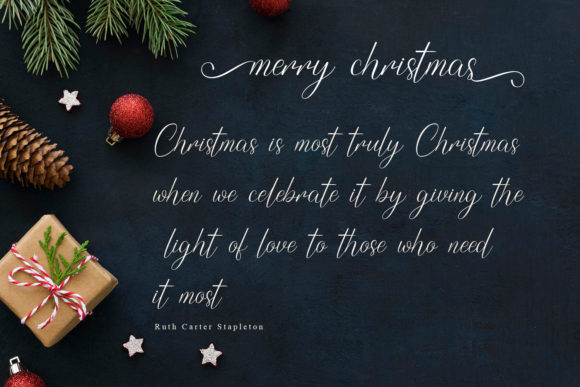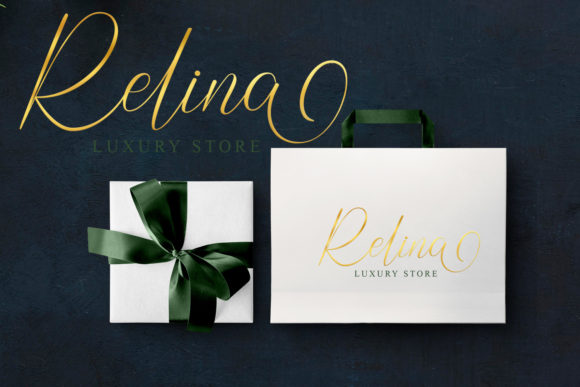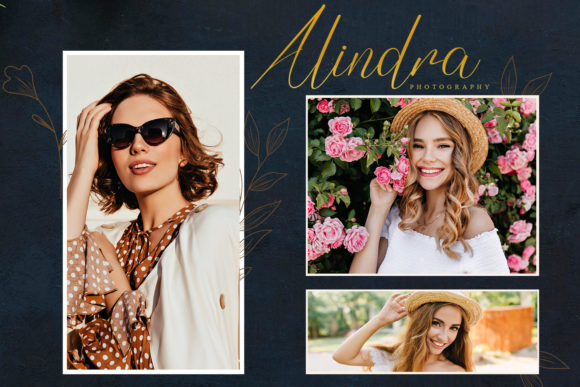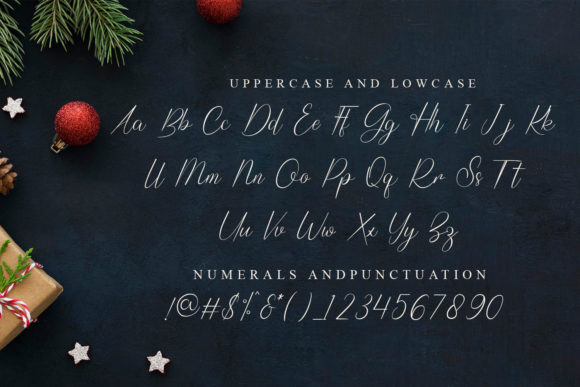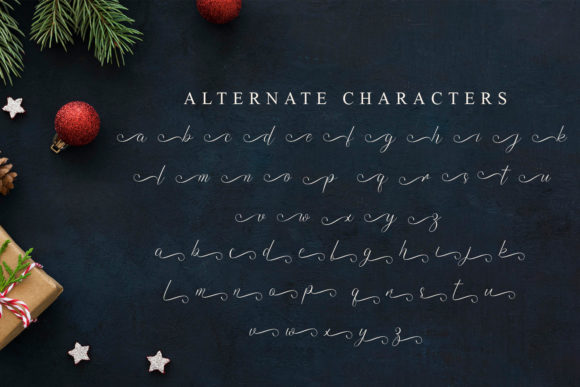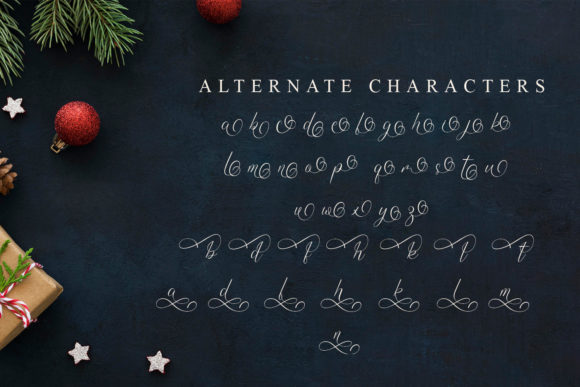
Introduction to Francella Font Font
Fonts play a crucial role in design, and the Francella Font font is a typeface that brings both character and versatility to any project. Whether you’re working on a branding project, a website, or a print design, the Francella Font font offers a unique style that can elevate your work.
Francella is an exquisite handwritten font, masterfully designed to become a true favorite.
It maintains its classy calligraphic influences while feeling contemporary and fresh Francella is PUA encoded which means you can access all glyphs and swashes with ease.
Key Features of Francella Font Font
Why Choose Francella Font Font?
The Francella Font font is more than just a typeface – it’s a design tool that helps you communicate your message with style and clarity. Its unique character set and versatile design make it suitable for a wide range of applications, from elegant invitations to bold headlines.
With its carefully crafted letterforms and balanced proportions, the Francella Font font ensures readability and visual appeal across all mediums.
What makes Francella Font font special?
The Francella Font font stands out with its unique design, exceptional readability, and versatility across various design applications.